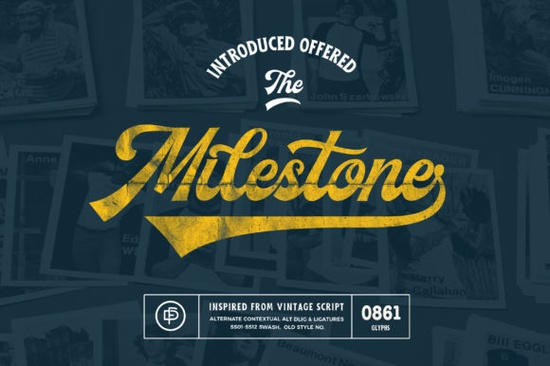
If you’re working on a project that needs a strong vintage feel, a well-chosen typeface can make all the difference. The Milestone Font is a duo font combining a handwritten script with a classic serif, inspired by vintage baseball graphics, sign painting, and old-fashioned labeling. It’s designed for logos, labels, coffee shop branding, bar menus, and anything that wants to channel the character of past times. This pairing works especially well when you need contrast the script adds a personal, handcrafted touch while the serif brings structure and readability.
What makes Milestone Font different from other vintage fonts?
Many vintage fonts lean heavily on one style, but Milestone Font gives you two complete typefaces in one purchase. The handwritten part feels like a sign painter’s brush, with natural variation and a slightly rough edge. The serif is clean but not cold it has the proportions you’d see on old sports jerseys or storefronts. Together, they let you create headings, subheadings, and body text without mixing fonts from different designers. That’s a big time-saver.
For comparison, if you like the relaxed feel of a monoline boho font, you’ll notice the handwritten script here has more contrast and character. Where a boho font might feel airy, Milestone feels grounded and sturdy perfect for projects that need a sense of history.
How can I use this font in real projects?
Whether you design for print-on-demand, craft small-batch products, or run a small business, this font fits a range of uses:
- Logo design – Use the serif for the brand name and the script for a tagline or accent word.
- Labeling – Coffee bags, jam jars, or beer bottles look authentic with the handwritten style.
- Signage – Whether digital or physical, the typeface mimics hand-painted signs from the 1920s.
- Menus and posters – The serif is readable at small sizes, while the script draws attention to specials or headings.
- Social media graphics – Combine both styles for quotes or announcements with a nostalgic twist.
If you already work with a bunny font for playful projects, Milestone offers a more serious, masculine alternative still with personality, but less whimsical.
Is this font easy to pair with other typefaces?
Yes. Because Milestone already comes as a duo, you can use it alone without needing extra fonts. But if you want to mix it up, the serif pairs nicely with simple sans-serifs for modern contrast. The script works well with delicate or neutral fonts for a balanced look.
For example, if you’re designing a wedding invitation with a vintage theme, you could combine the Milestone serif with a rustic wedding font. The rustic font might handle the main text while Milestone’s script adds the handwritten flourish.
What kind of businesses or creators should consider this font?
This font is ideal for:
- Print-on-demand sellers – T-shirts, mugs, and tote bags with sports or bar themes sell well with this look.
- Small coffee shop or bar owners – Use it for branding that feels authentic and local.
- Graphic designers – Having a duo font saves time on client projects that need a vintage identity.
- Crafters – Scrapbooking, card making, or vinyl cutting projects benefit from the two distinct styles.
- Hobbyists – If you’re designing a label for homemade gifts or a personal blog, this font gives a polished result without extra work.
If you’ve tried a abcd cursive handwriting tracing bundle font for educational materials, you’ll notice Milestone isn’t meant for learning it’s decorative. But the handwriting style is still readable, just more expressive.
How does the font handle different weights and sizes?
The set includes both regular and alternate characters, plus ligatures for the script. At larger sizes, the imperfections in the handwritten strokes become a feature they add texture. At smaller sizes, the serif remains legible, even when used for short paragraphs. It’s not designed for long body text, but for headlines, quotes, and short descriptions it works well.
For comparison, an almond script font tends to be more elegant and delicate. Milestone’s script is bolder, with a rougher edge, so it stands out better on signs and merchandise.
What should I keep in mind when using this font in my designs?
Here’s a quick checklist to get the best results:
- Use the script sparingly – It works best for short words or phrases. Pair it with the serif for longer text.
- Stick to earth tones – Browns, creams, deep greens, and faded reds complement the vintage feel.
- Add texture – Use a paper or grunge background to enhance the hand-painted effect.
- Mind the spacing – The script has tight letter spacing by default. You may want to adjust tracking in your design software.
- Test on products – If you’re printing on a physical item, run a mockup first to see how the contrasting styles look together.
Next step: Try using Milestone Font on a simple logo mockup. Start with the serif for the main name, then add the script for a descriptive word like “coffee” or “since 1923.” That combination alone can give you a strong starting point for branding with authentic vintage character.